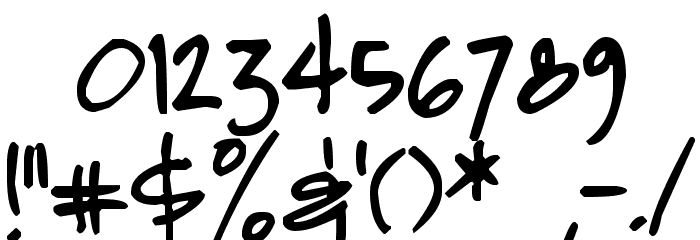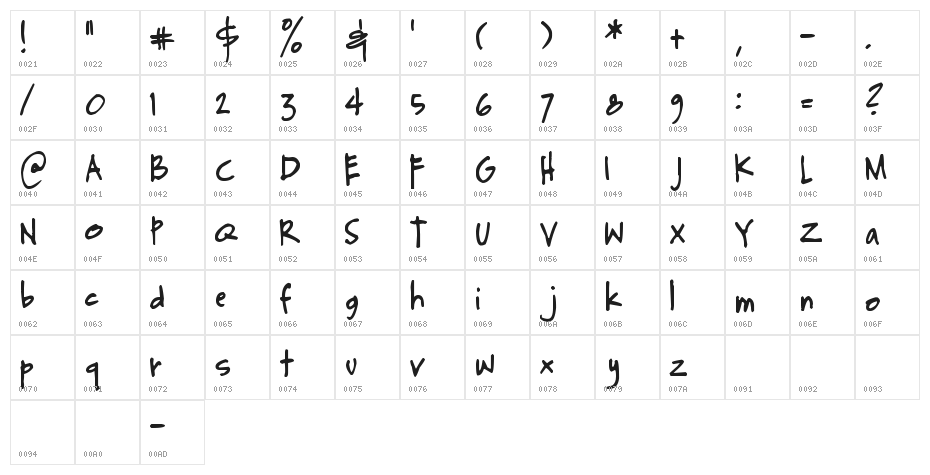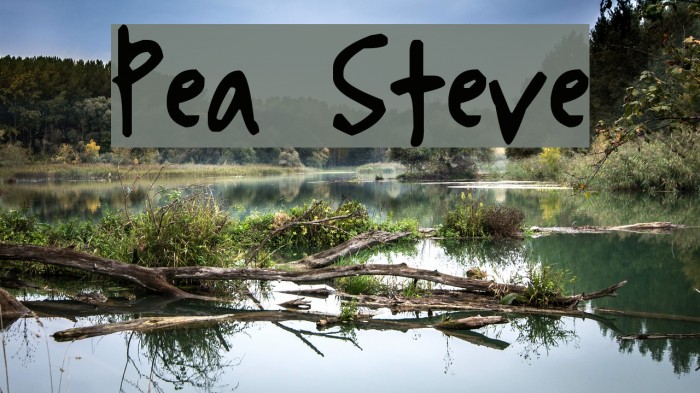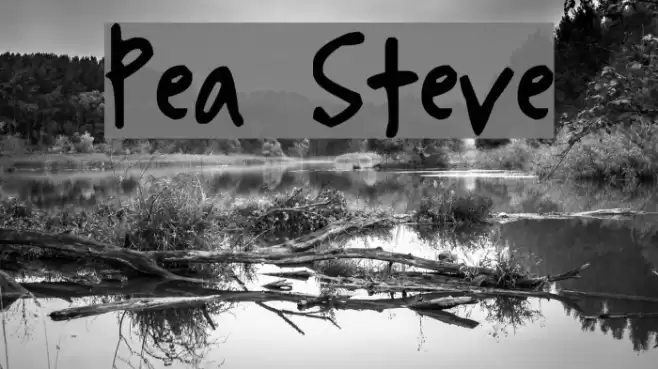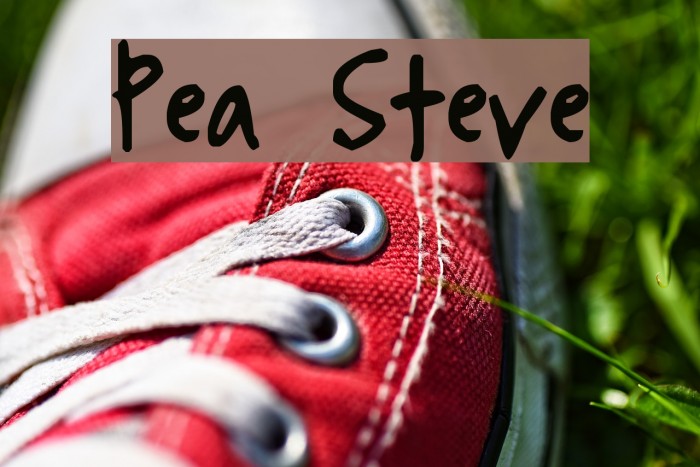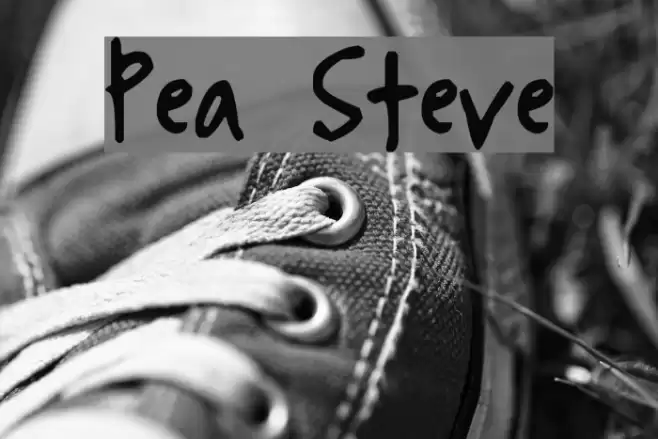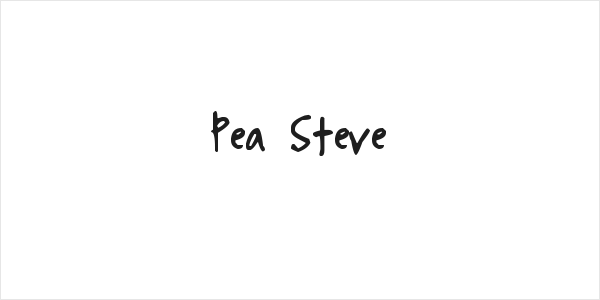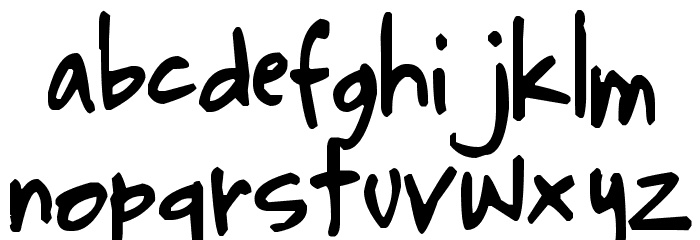
Pea Steve Font
Pea Steve Description
This font exhibits a playful and casual handwritten style, characterized by its irregular strokes and organic flow. The letters are slightly slanted, giving a dynamic and lively appearance. The uppercase and lowercase letters maintain a consistent style, with rounded edges and varying stroke thickness that adds to its informal charm. The numerals and special characters follow the same whimsical design, making it suitable for projects that require a personal touch. Its overall appearance is approachable and friendly, perfect for creative and informal applications.
| Use Case | Headlines, Logos, Informal text |
| Proposed Projects | Ideal for greeting cards, personal notes, children's books, and creative branding projects. |